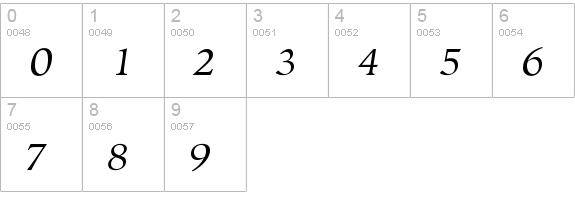
Hiroshige Std Book Italic is a comfortable, highly readable, italic variant in the Hiroshige typeface family \xE2\x80\x94 well suited to long-form body text, articles, and editorial content.
Hiroshige Std Book Italic font is a beautifully crafted typeface that exudes elegance and sophistication. Its flowing italic design adds a touch of grace to any project, making it perfect for use in both print and digital applications. The graceful curves and delicate strokes of this font create a sense of movement and fluidity, making it a versatile choice for a wide range of design projects. The best part? Hiroshige Std Book Italic font is available for free download at FontsMarket.com, making it easily accessible for designers and creatives looking to add a touch of style to their work. Whether you're working on a branding project, editorial design, or web design, this font will elevate your work with its timeless appeal and subtle charm. Download Hiroshige Std Book Italic font today and bring a touch of sophistication to your designs.